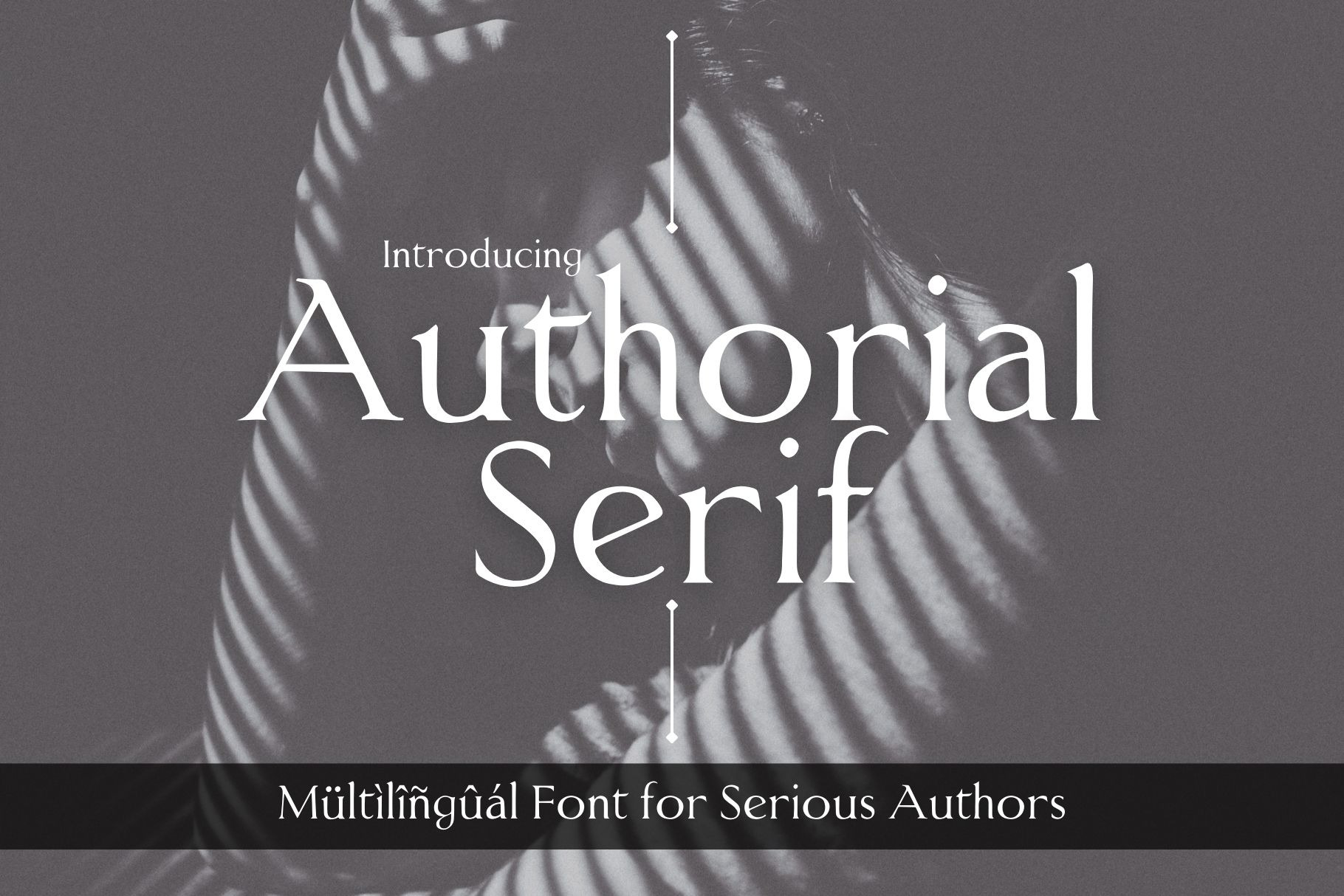
Authorial Serif Multilingual Font
Authorial Serif Multilingual Regular and Bold Font
Elevate your design projects with Authorial Serif, a stunning multilingual serif typeface that perfectly blends classic elegance with modern versatility. Available in both Regular and Bold weights, this font is your go-to choice for creating timeless logos, captivating editorials, and unforgettable book covers.
Inspired by the Classic Show Card Writers of the Late 1800s
Authorial Serif draws its inspiration from the masterful show card writers of the late 1800s, who turned every letter into a piece of art. This font pays homage to their craftsmanship with its refined serifs and sophisticated curves, bringing a touch of vintage charm to contemporary designs.
-Multilingual Support: Includes an extensive range of characters to support multiple languages, ensuring your designs can communicate with a global audience.
-Regular and Bold Weights: Two carefully crafted weights that provide flexibility and contrast, perfect for creating hierarchy and emphasis in your designs.
-Timeless Elegance: A classic serif design that adds a touch of sophistication to any project, inspired by historical show card writing techniques.
-Versatile Applications: Ideal for logos, editorials, book covers, and more, offering a refined look that enhances any creative work.
Why Choose Authorial Serif?
Authorial Serif isn’t just a font—it’s a tribute to the artistry of the past, reimagined for today’s creative needs. Its classic yet contemporary design ensures that your projects not only stand out but also convey a sense of timeless sophistication. Enhance your design repertoire with Authorial Serif and let your creativity flourish.